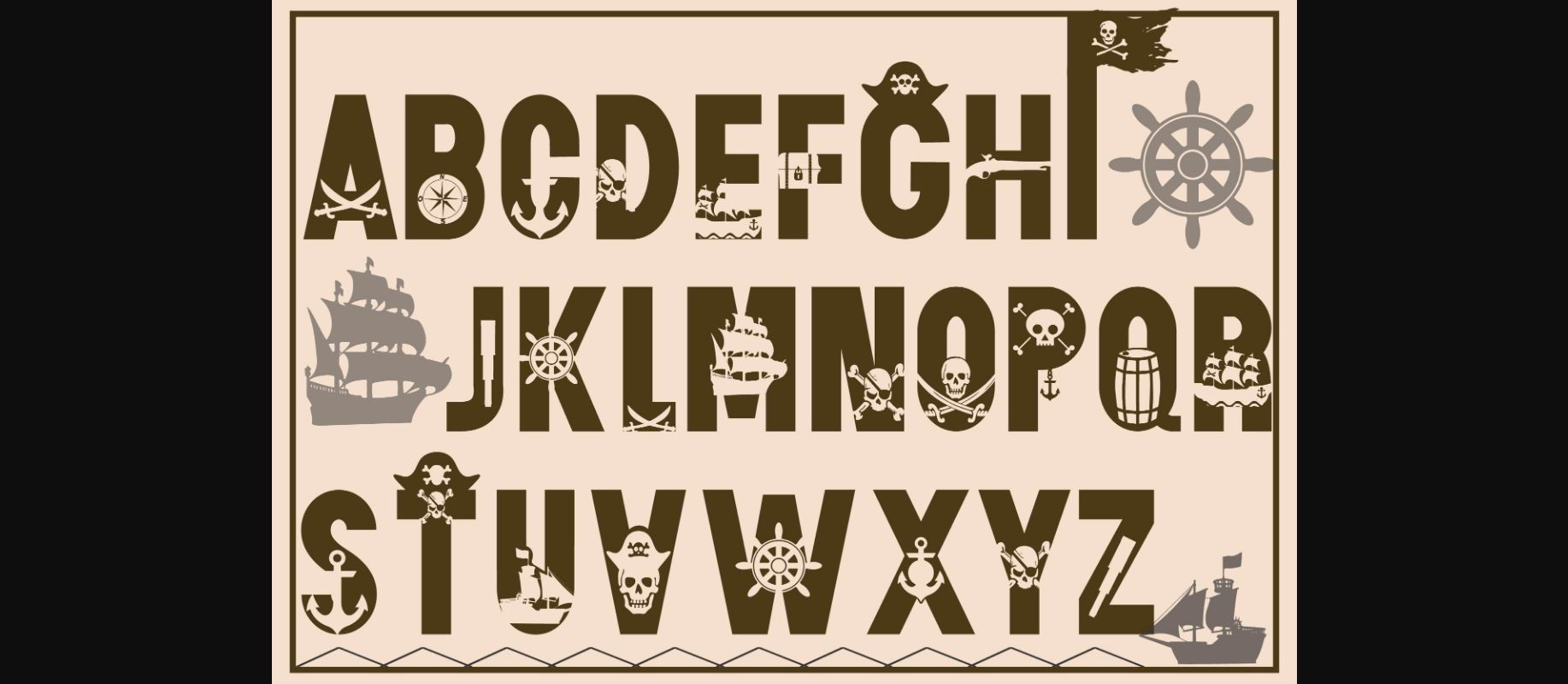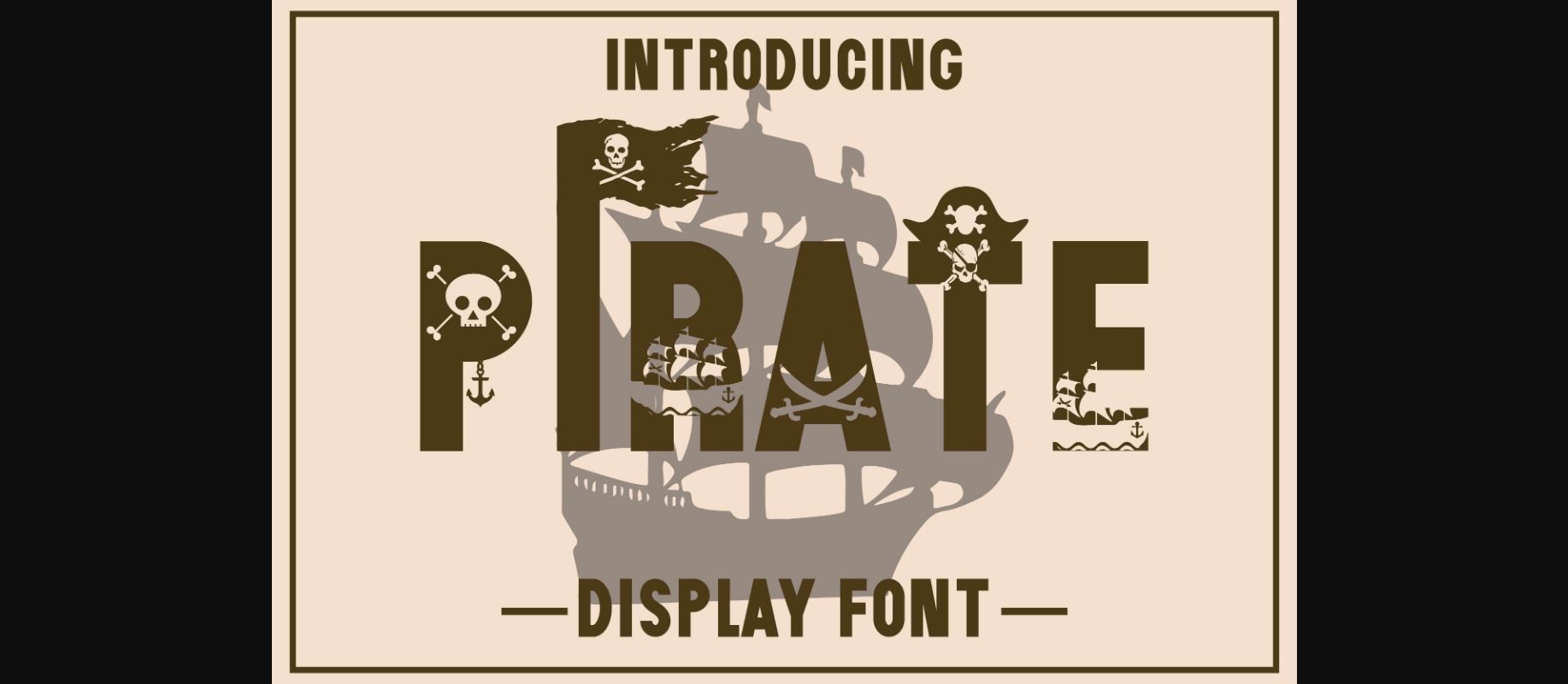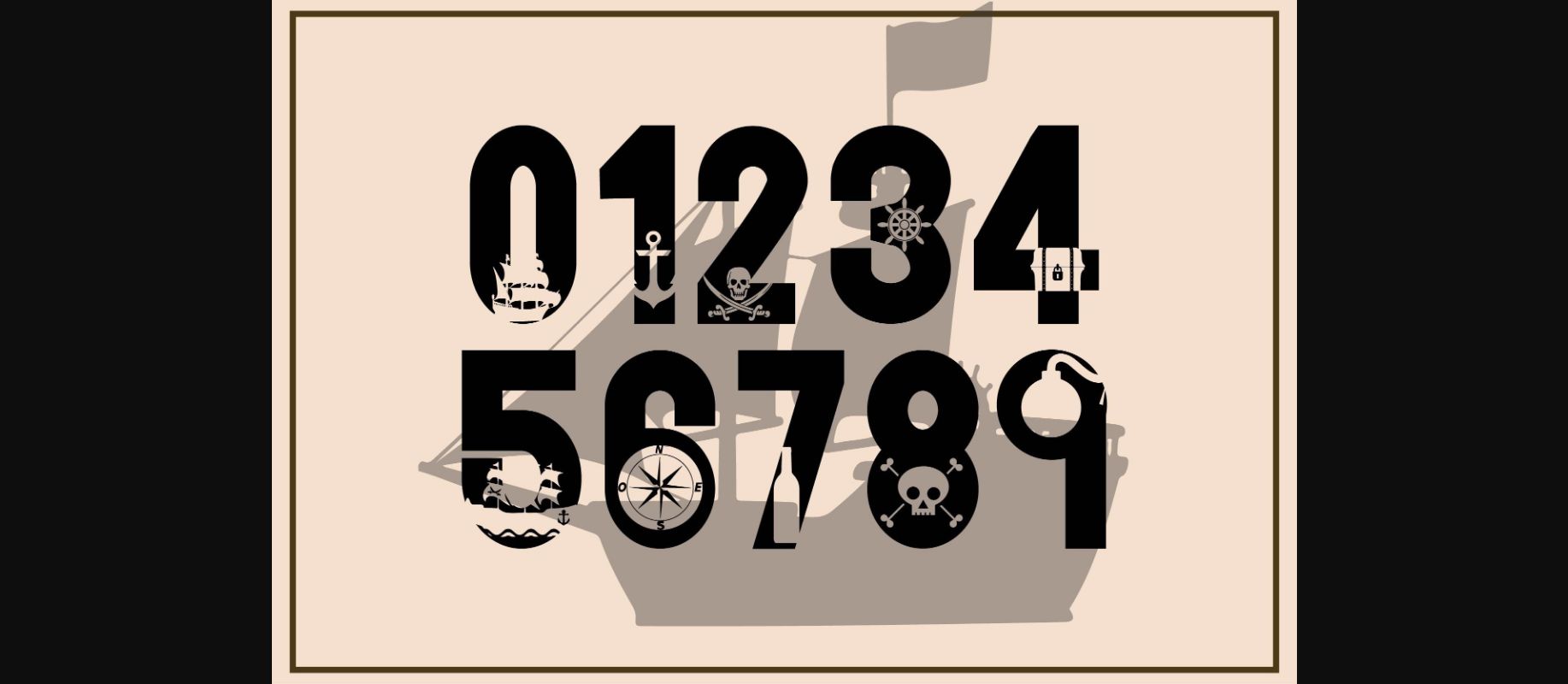
About Pirate Font
Pirate is a cool and original-looking decorative font perfect for logotypes, headlines, corporate identity, brand identity, apparel industry, posters, music, movies, games, magazines, books, comics, cartoons, YouTube, Instagram, websites, and any of your creative projects.